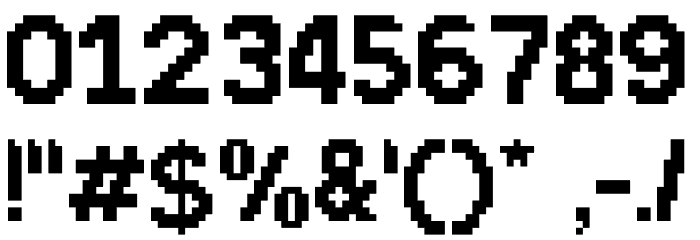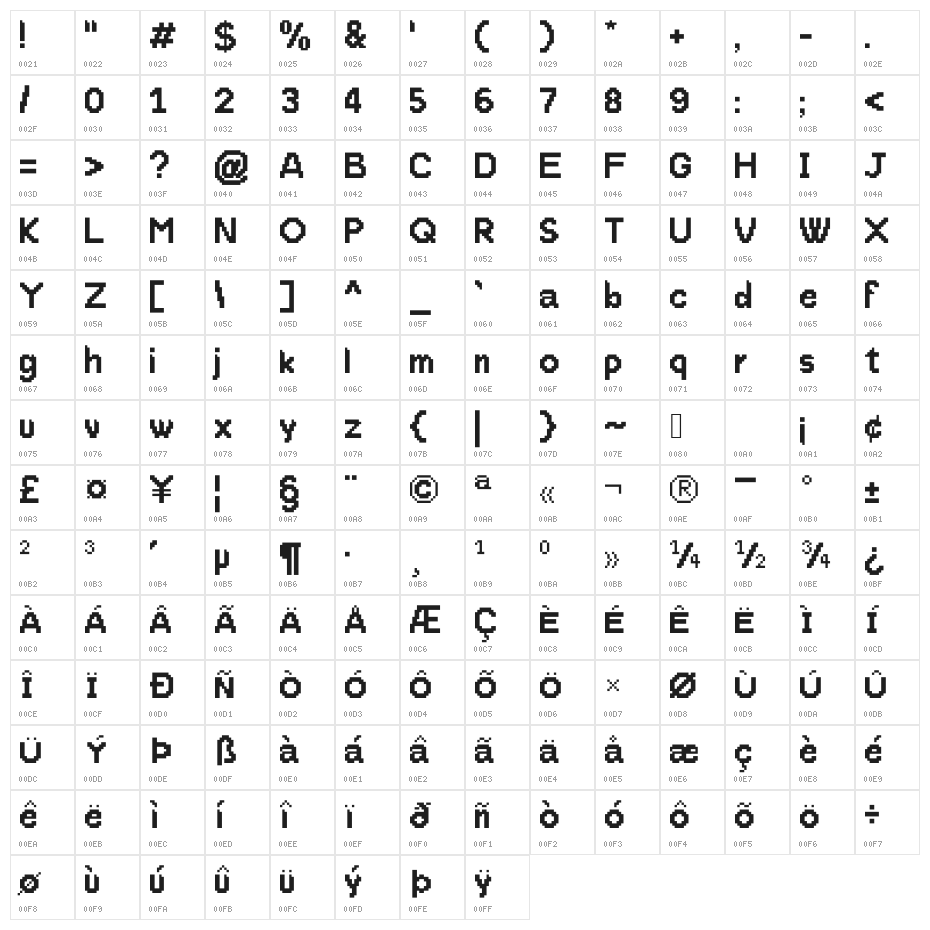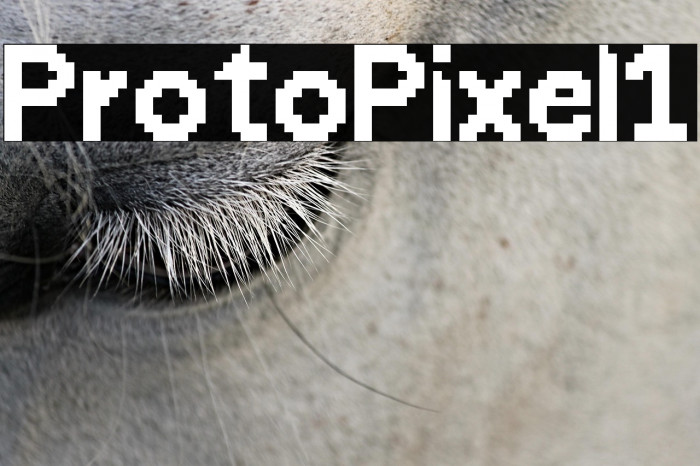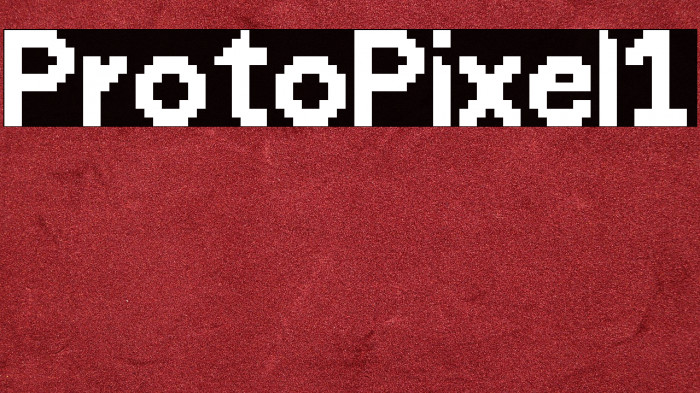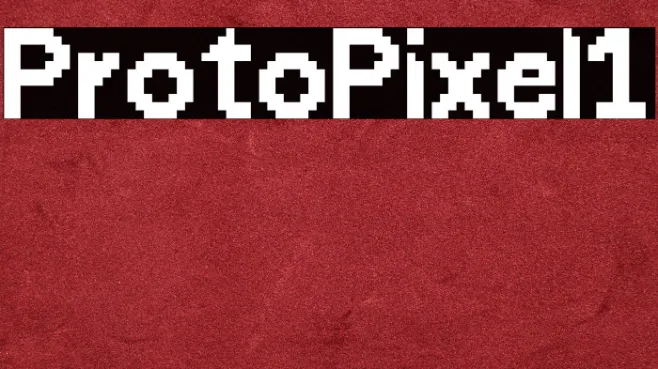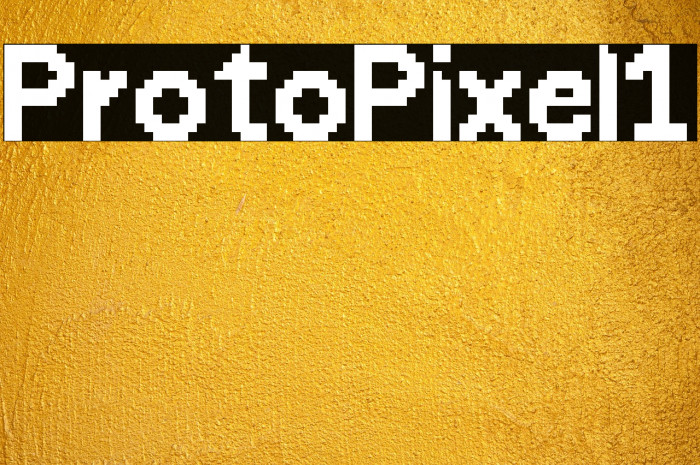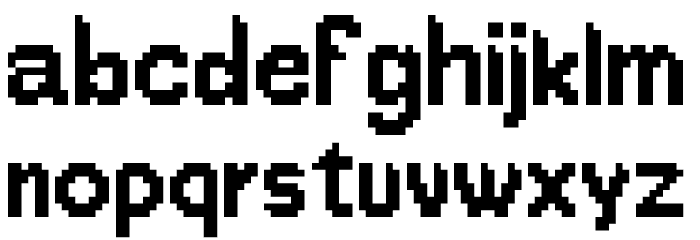
ProtoPixel1 Font
ProtoPixel1 Description
This font features a pixelated, blocky style reminiscent of early digital displays and video games. Each character is constructed with a uniform grid-like structure, giving it a distinctly retro and digital appearance. The uppercase and lowercase letters maintain a consistent height and width, contributing to a cohesive and structured look. Numbers and special characters follow the same pixelated design, ensuring uniformity across all glyphs. The font's simplicity and geometric nature make it highly legible, even at smaller sizes, while its nostalgic aesthetic evokes a sense of classic gaming and digital nostalgia.
| Use Case | Logos, Headlines, Digital Art |
| Proposed Projects | Ideal for retro video game designs, digital art projects, tech-themed posters, and any project seeking a nostalgic digital aesthetic. |